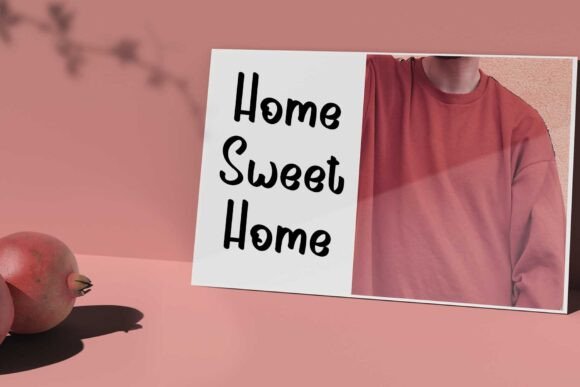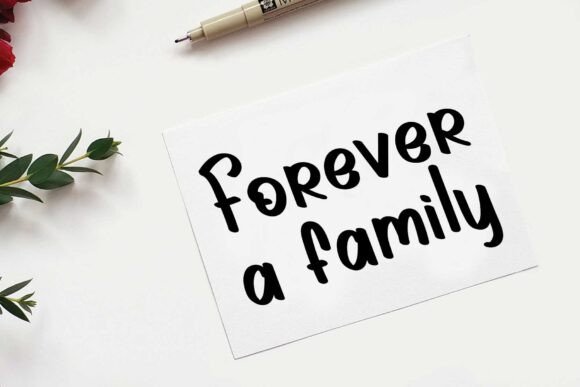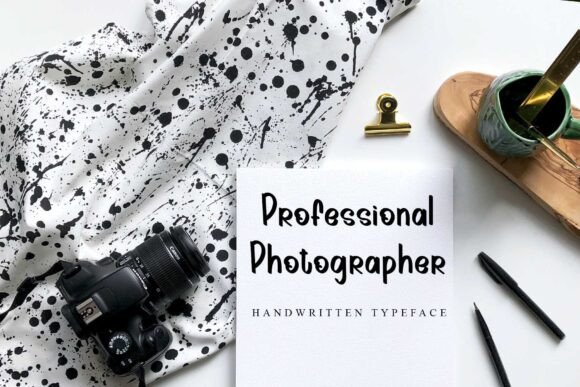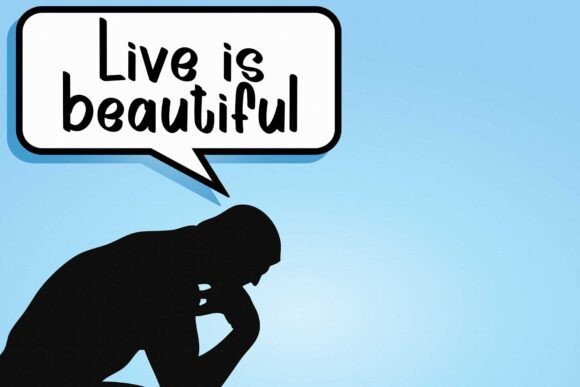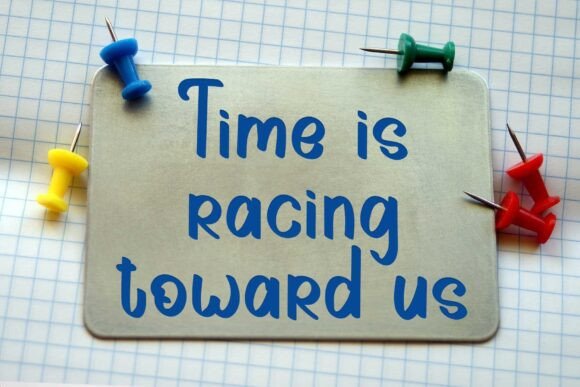
Introducing Beautiful Font: Elevate Your Designs with Elegance
Are you searching for a font that adds a touch of sophistication and elegance to your projects? Look no further than the Beautiful Font, a unique and carefully crafted typeface designed to make your designs stand out. In this article, we’ll explore the features and benefits of the Beautiful Font, and how it can be the perfect addition to your design toolkit.
What is Beautiful Font?
Beautiful Font is a professionally designed typeface, created with a hand touch that exudes elegance and refinement. This font is not just a collection of letters and numbers; it’s a design element that can transform your projects into stunning works of art. Whether you’re working on a wedding invitation, a birthday card, or a school assignment, Beautiful Font is the perfect choice to add a touch of sophistication.
Key Features of Beautiful Font
- Unique and Elegant Design: Beautiful Font boasts a distinctive and refined design that will set your projects apart from the rest.
- Professional Hand Touch: The font’s hand-crafted touch gives it a personal and bespoke feel, perfect for designs that require a human touch.
- Versatile: Beautiful Font is suitable for a wide range of projects, from greeting cards to school assignments, and can be used in various design contexts.
- Accessible Glyphs: The font comes with all glyphs, ensuring that you have everything you need to create stunning designs without requiring additional applications.
Use Cases for Beautiful Font
Beautiful Font is incredibly versatile and can be used in a variety of design projects, including:
- Wedding Invitations: Add a touch of romance and elegance to your wedding invitations with Beautiful Font.
- Birthday Cards: Make your birthday cards extra special with this beautiful and unique font.
- School Assignments: Give your school projects a professional edge with Beautiful Font.
- Party Invitations: Whether it’s a birthday party, graduation party, or any other celebration, Beautiful Font is the perfect choice.
Why Choose Beautiful Font?
With so many fonts available, why choose Beautiful Font? Here are a few reasons:
- High-Quality Design: The font’s unique design ensures that your projects will stand out and look professional.
Tips for Using Beautiful Font
To get the most out of Beautiful Font, here are a few tips:
- Experiment with Sizes and Colors: Play around with different sizes and colors to find the perfect combination for your design.
- Pair with Other Fonts: Beautiful Font pairs well with other fonts, so don’t be afraid to experiment with different combinations.
- Use in Combination with Images: The font looks great when used in combination with images, so try incorporating it into your designs for a unique look.
In conclusion, Beautiful Font is a unique and elegant typeface that can elevate your designs to the next level. With its professional hand touch, versatile design, and accessible glyphs, it’s the perfect choice for designers and crafters looking to add a touch of sophistication to their projects. Whether you’re working on a wedding invitation, a school assignment, or any other design project, Beautiful Font is sure to impress.